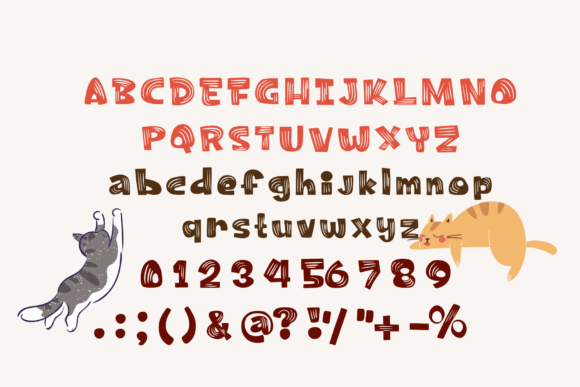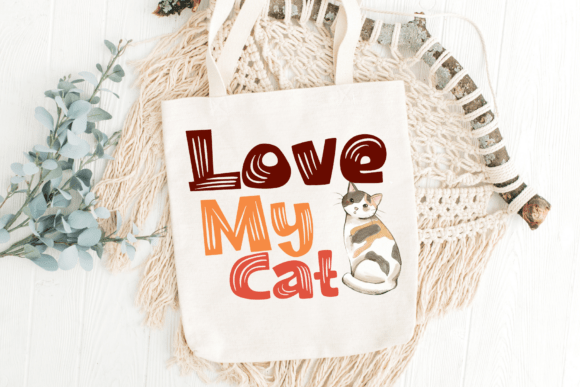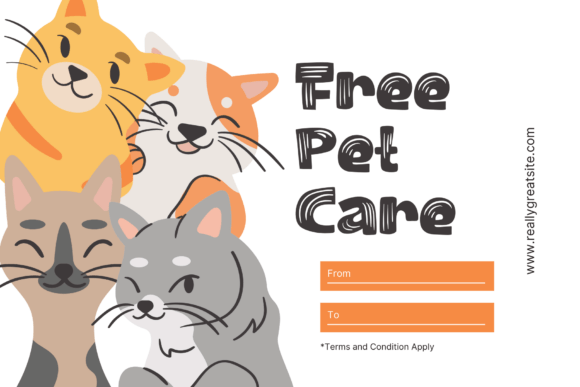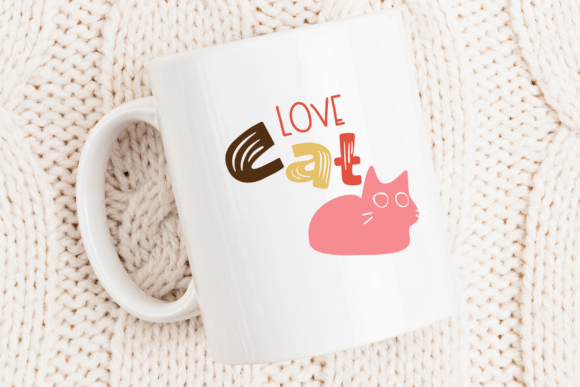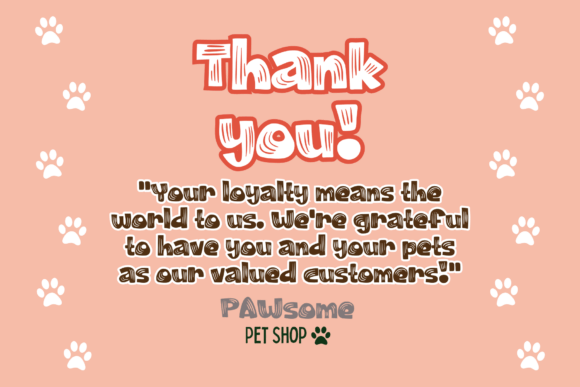
Introducing Cat Scratch Font: A Whimsical Decorative Font for Creative Projects
Are you a designer, crafter, or DIY enthusiast looking for a unique and playful font to add a personal touch to your projects? Look no further than Cat Scratch Font, a delightful decorative font that’s purr-fect for a variety of creative endeavors. In this article, we’ll explore the features and uses of Cat Scratch Font, and show you how to make the most of this charming font in your designs.
What is Cat Scratch Font?
Cat Scratch Font is a decorative font designed to resemble handwritten text with a playful, scratchy feel. The font’s irregular lines and whimsical flourishes evoke the feeling of writing with a cat’s claw, hence its name. This font is ideal for adding a touch of personality and whimsy to your designs, making it perfect for crafty projects, DIY tutorials, and creative writing.
Uses for Cat Scratch Font
Cat Scratch Font is a versatile font that can be used for a wide range of projects, including:
- Note-taking and journaling: Add a personal touch to your notes and diary entries with Cat Scratch Font. Its playful feel makes it perfect for writing down quotes, lyrics, or inspiration.
- Greeting cards and invitations: Create one-of-a-kind greeting cards, invitations, and party decor with Cat Scratch Font. Its whimsical feel is sure to delight friends and family.
- Banners and signs: Use Cat Scratch Font to create eye-catching banners and signs for parties, events, or promotions.
- Social media posts: Add a touch of personality to your social media posts with Cat Scratch Font. Use it to create engaging quotes, fun facts, or inspiring messages.
- Merchandise and crafts: Cat Scratch Font is perfect for designing custom merchandise, such as mugs, t-shirts, and tote bags. You can also use it to create handmade crafts, like cards, gift tags, and stationery.
Tips for Using Cat Scratch Font
To get the most out of Cat Scratch Font, here are some tips to keep in mind:
- Keep it simple: Cat Scratch Font is best used in short bursts, such as headings, titles, or captions. Use it sparingly to add visual interest to your designs.
- Mix and match: Combine Cat Scratch Font with other fonts to create visual interest. Try pairing it with a clean sans-serif font for a striking contrast.
- Experiment with colors: Cat Scratch Font looks great in a variety of colors, from bright and bold to soft and pastel. Experiment with different colors to find the perfect fit for your design.
- Add embellishments: Take your designs to the next level by adding embellishments, such as stickers, stamps, or illustrations. Cat Scratch Font provides a great foundation for creative experimentation.
Cat Scratch Font is a delightful decorative font that’s perfect for designers, crafters, and DIY enthusiasts. Its playful, whimsical feel makes it ideal for a wide range of creative projects, from note-taking and journaling to greeting cards and merchandise. With its versatility and charm, Cat Scratch Font is sure to become a favorite in your design toolkit. So why not give it a try and see what creative possibilities unfold?
Whether you’re a seasoned designer or a crafting newbie, Cat Scratch Font is a great addition to your creative arsenal. So go ahead, get creative, and show the world your personal style with Cat Scratch Font!